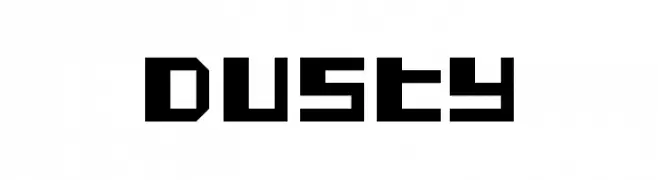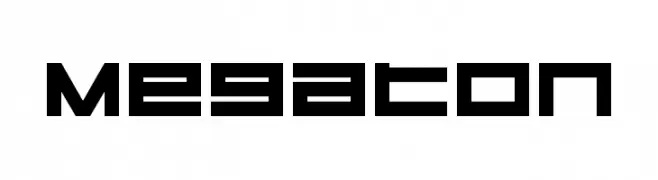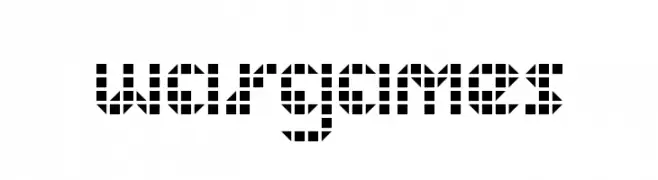
( Fonts by Dustin Norlander - www.cheapskatefonts.com )
A pixelated, retro-style font reminiscent of early digital displays.
( Fonts by dustBUST - Andreas Nylin )
A bold, geometric font with a futuristic, digital style.
( Fonts by Ryoichi Tsunekawa - www.dharmatype.com )
A bold, geometric font with a modern and impactful design.
( Fonts by dustBUST - Andreas Nylin )
A bold, geometric font with a futuristic, digital aesthetic.
( Fonts by www.fontalicious.com )
A bold, geometric font with a futuristic digital aesthetic.